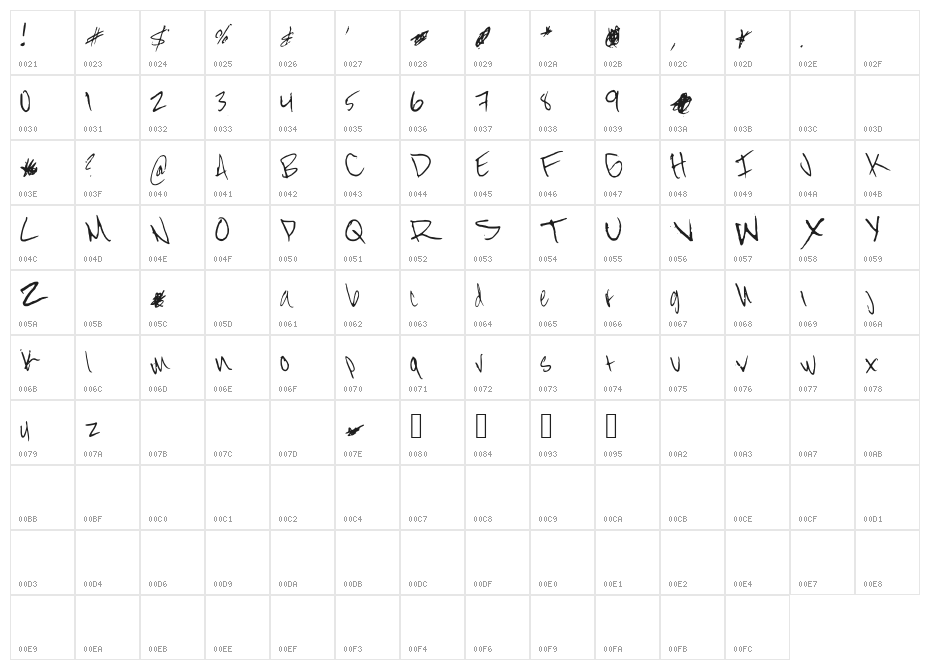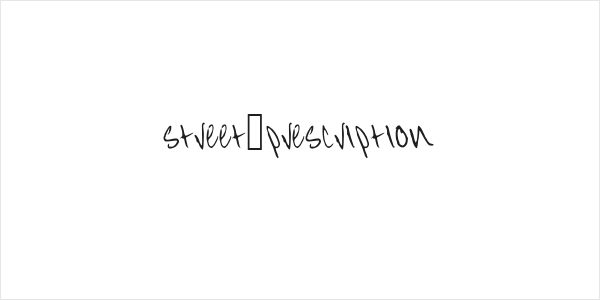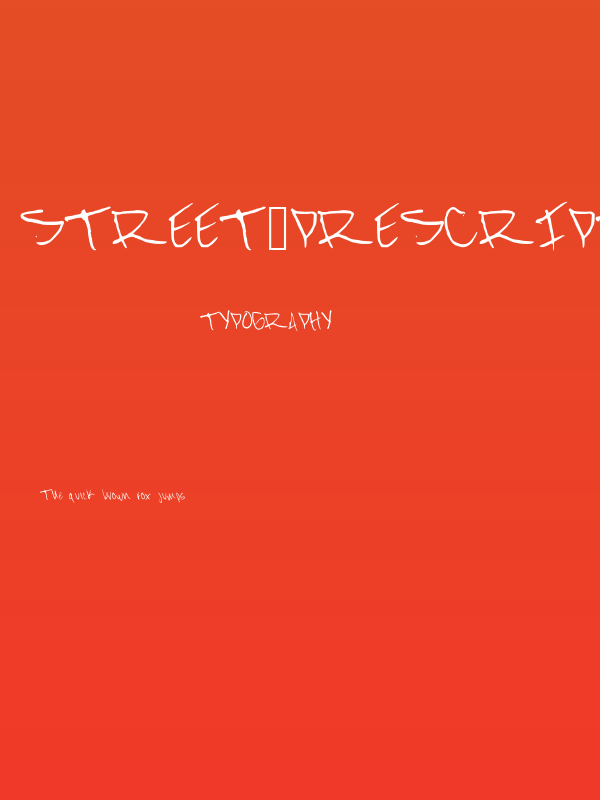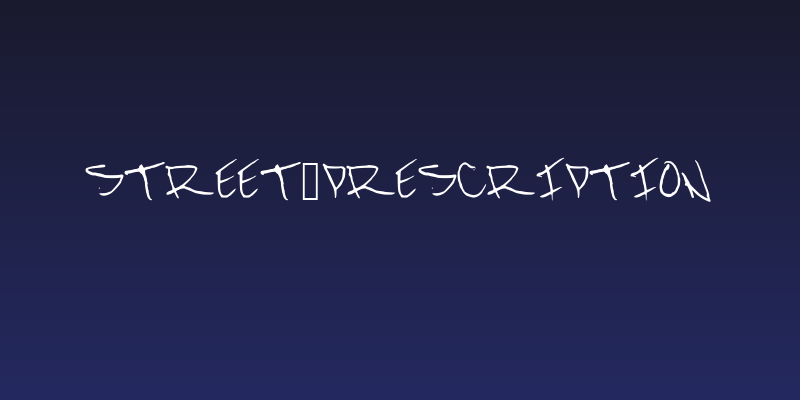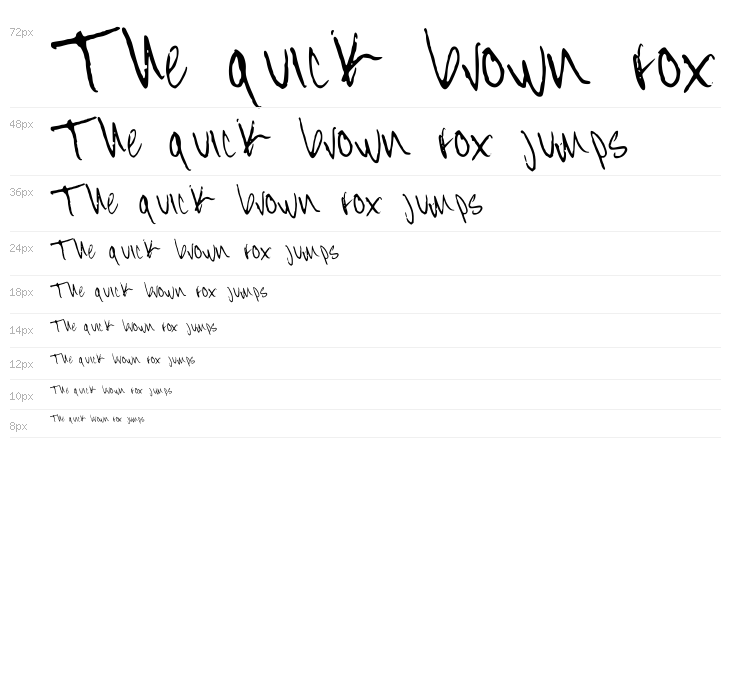
street_prescription Font
street_prescription Description
This font exudes an edgy, urban vibe with its hand-drawn, graffiti-inspired style. The letters are irregular and dynamic, with a raw, energetic feel that mimics the spontaneity of street art. The uppercase and lowercase characters maintain a consistent level of unpredictability, with strokes that vary in thickness, adding to the font's expressive nature. Numbers and special characters follow the same aesthetic, making the font versatile for creative projects that require a bold statement. The overall appearance is both chaotic and artistic, capturing the essence of street culture.
| Overall Style | Urban, Artistic, Edgy |
| Use Case | Logos, Posters, Album Covers |
| Proposed Projects | Ideal for streetwear branding, music album covers, urban-themed posters, and graffiti art projects. |